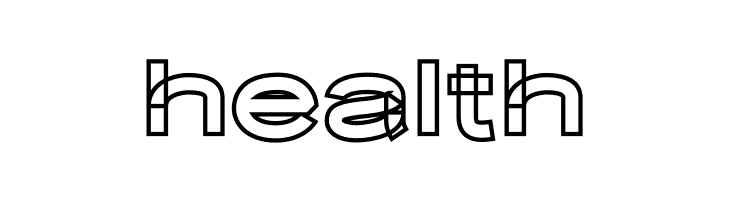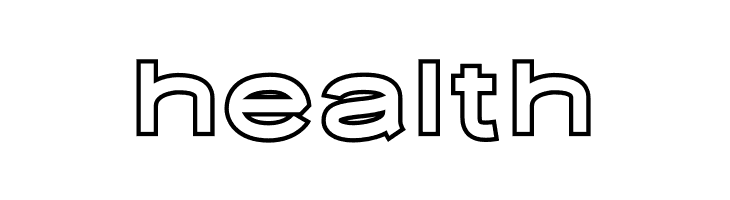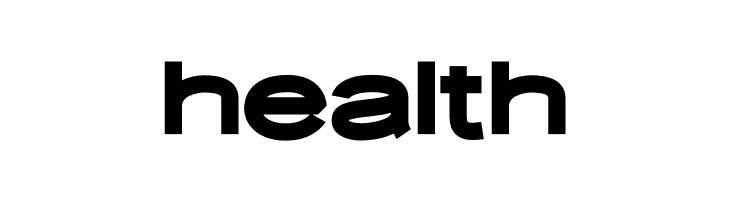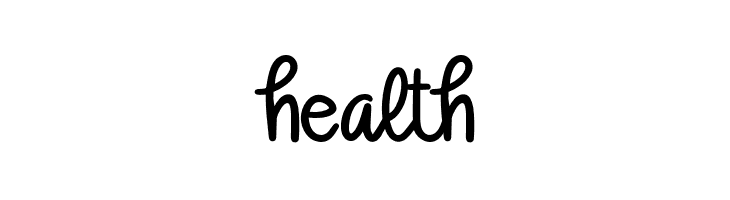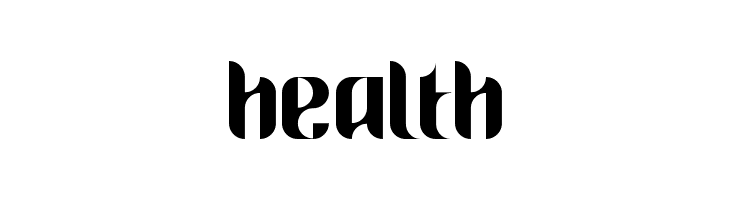
A geometric, double-line font with a modern and dimensional style.
A sleek, modern typeface with thin, geometric lines and a minimalist design.
A bold, geometric sans-serif font with a modern outline style.
A sleek, ultralight font with geometric lines and a modern aesthetic.
A bold, geometric sans-serif font with a modern and impactful style.
A dynamic, expressive handwritten font with fluid, cursive letterforms.
A modern, handwritten cursive font with elegant, fluid strokes.
A playful, handwritten font with smooth, rounded edges and a casual style.
A bold, modern font with geometric shapes and sharp angles.
A fluid and elegant script font with a personal touch.